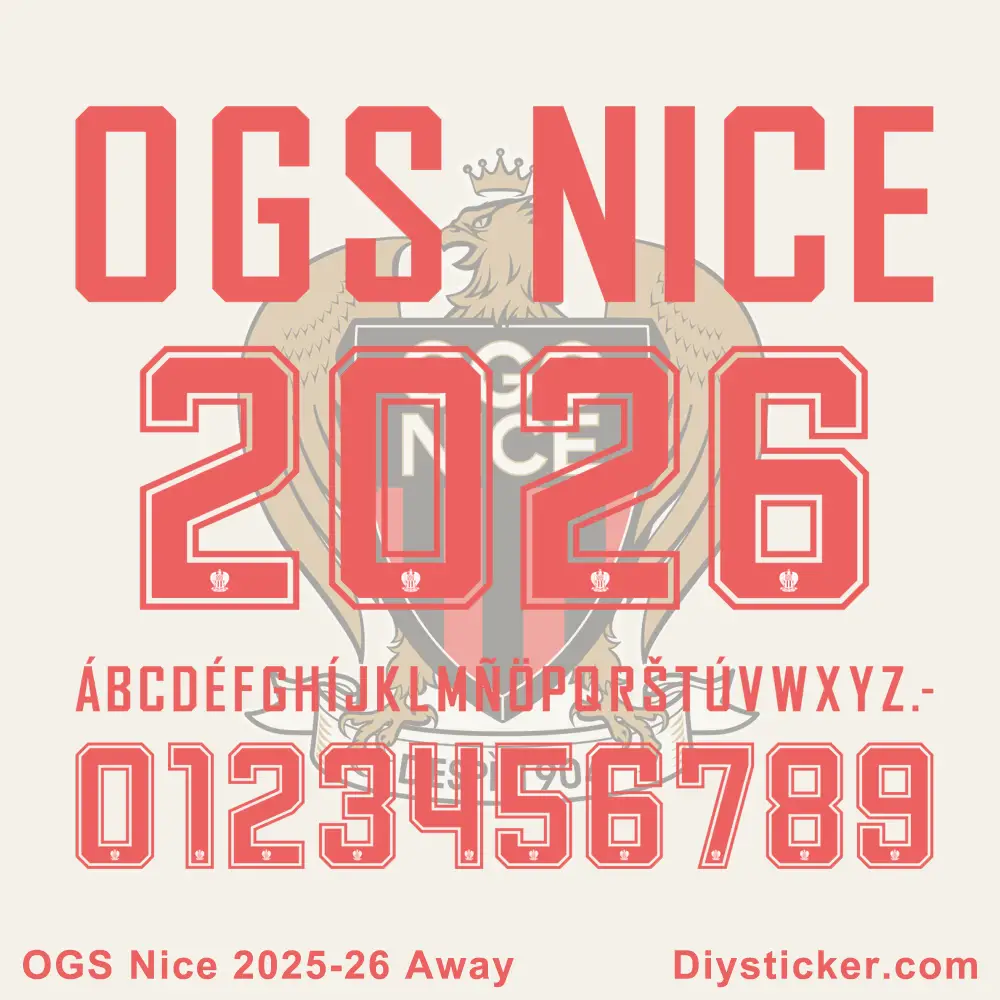
Capture the European spirit of Les Aiglons! This is the official OGC Nice Font 2025-2026 Away, the exact typeface featured on the club’s away kits and used during their UEFA Europa League campaign. Designed for high visibility and style, this font is a must-have for every OGC Nice supporter and designer.